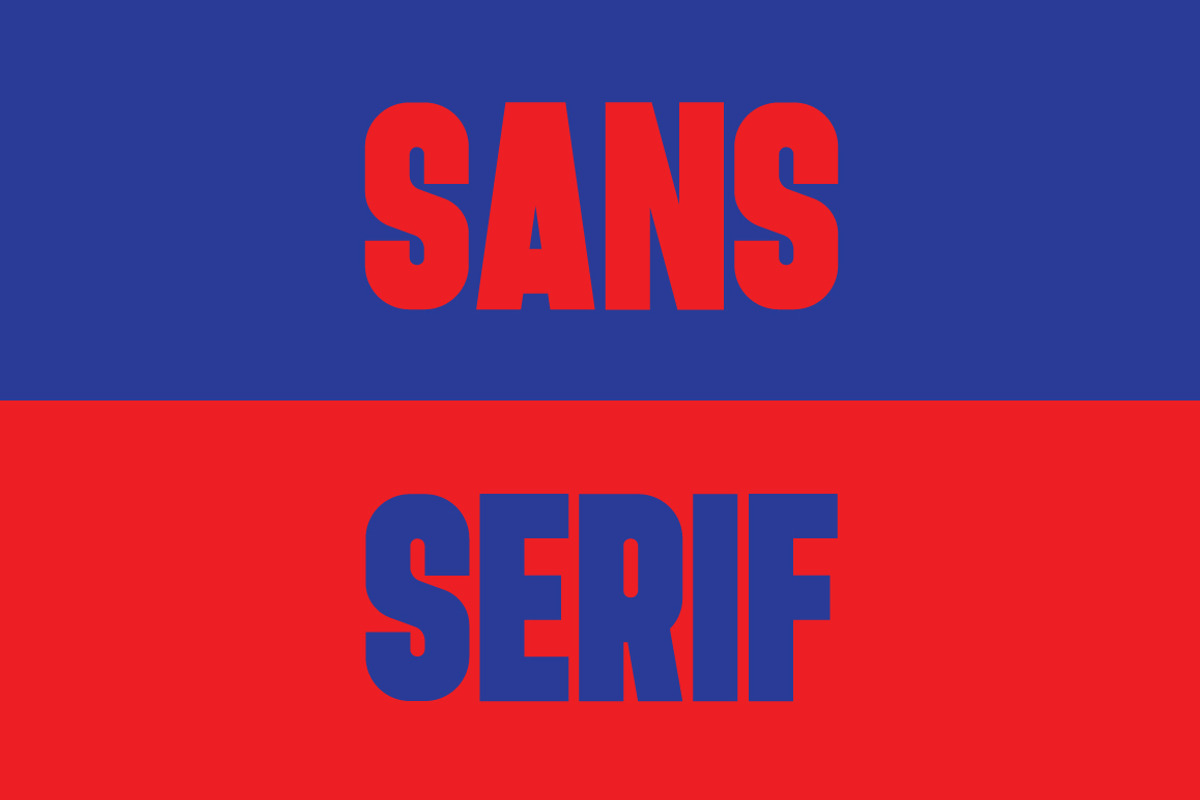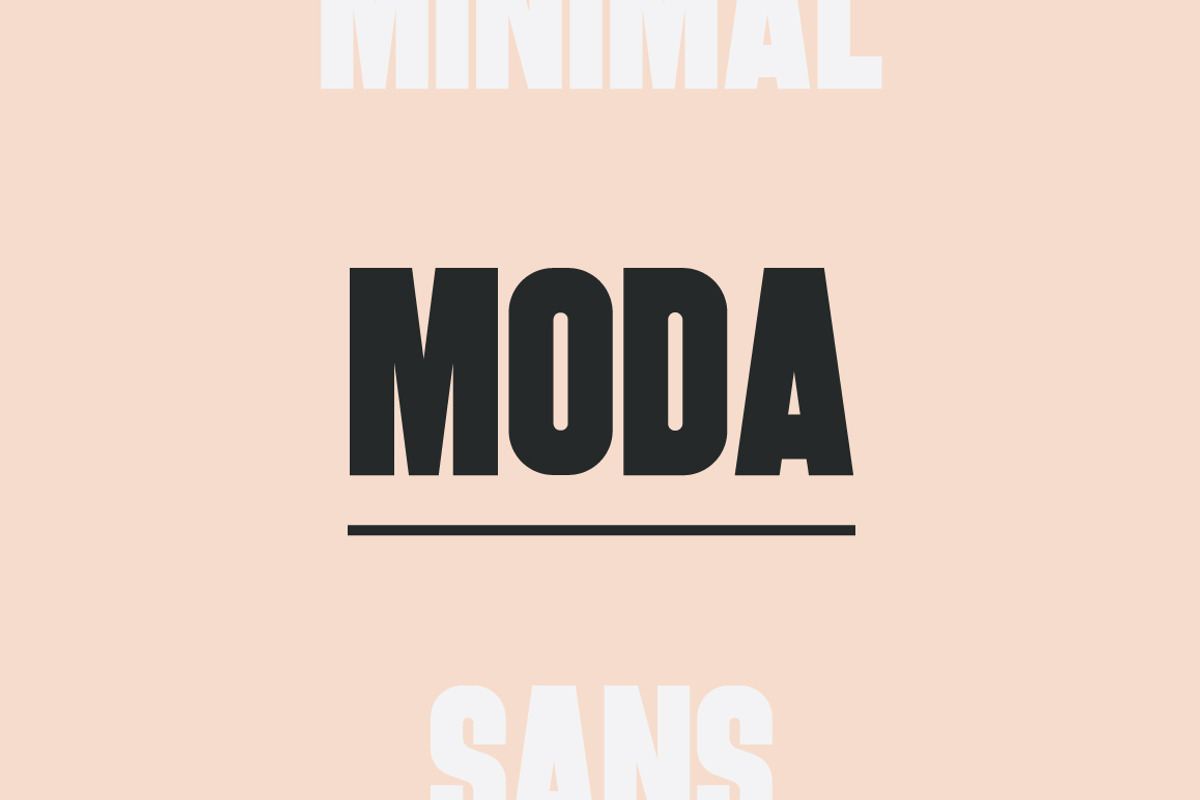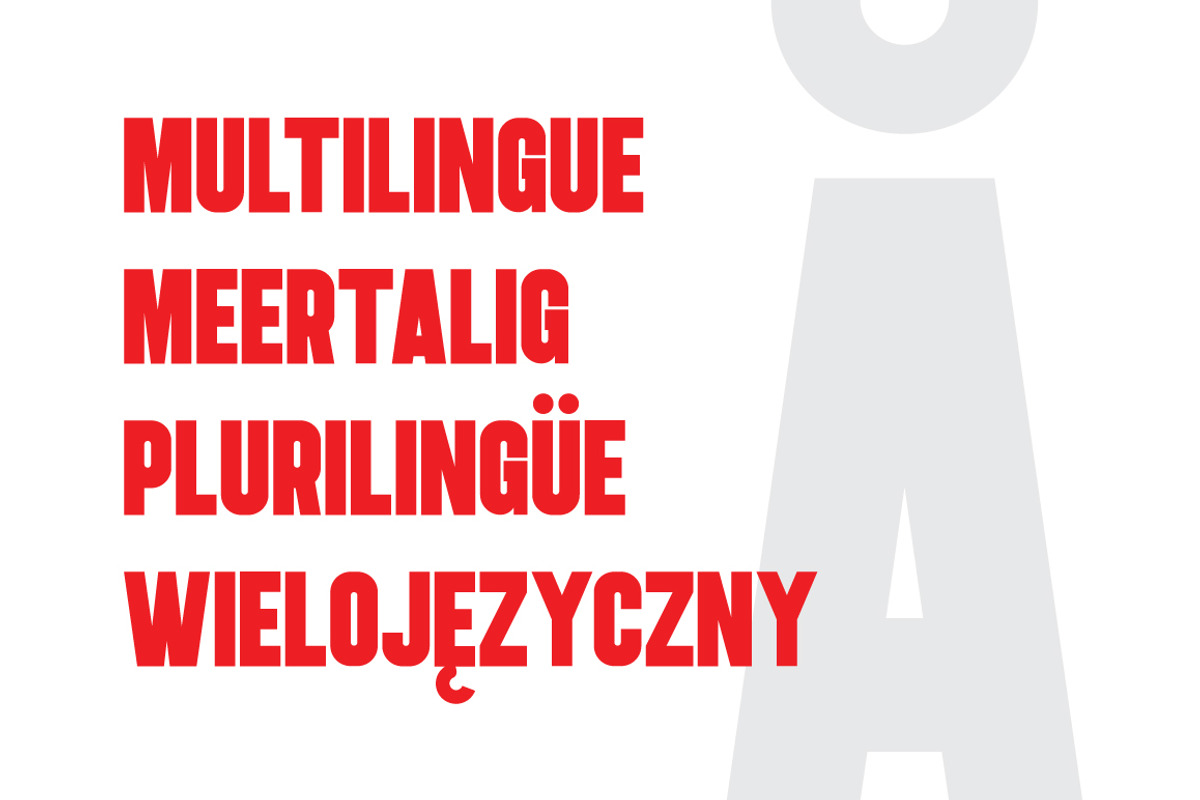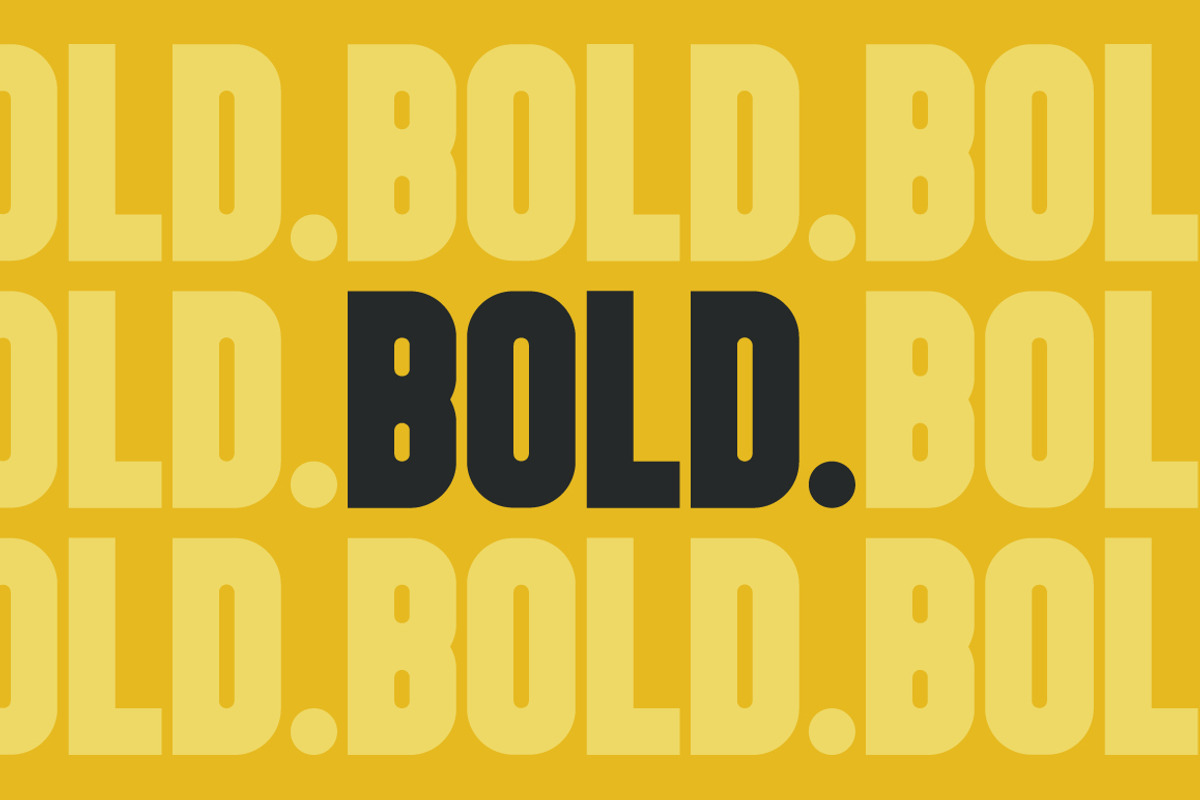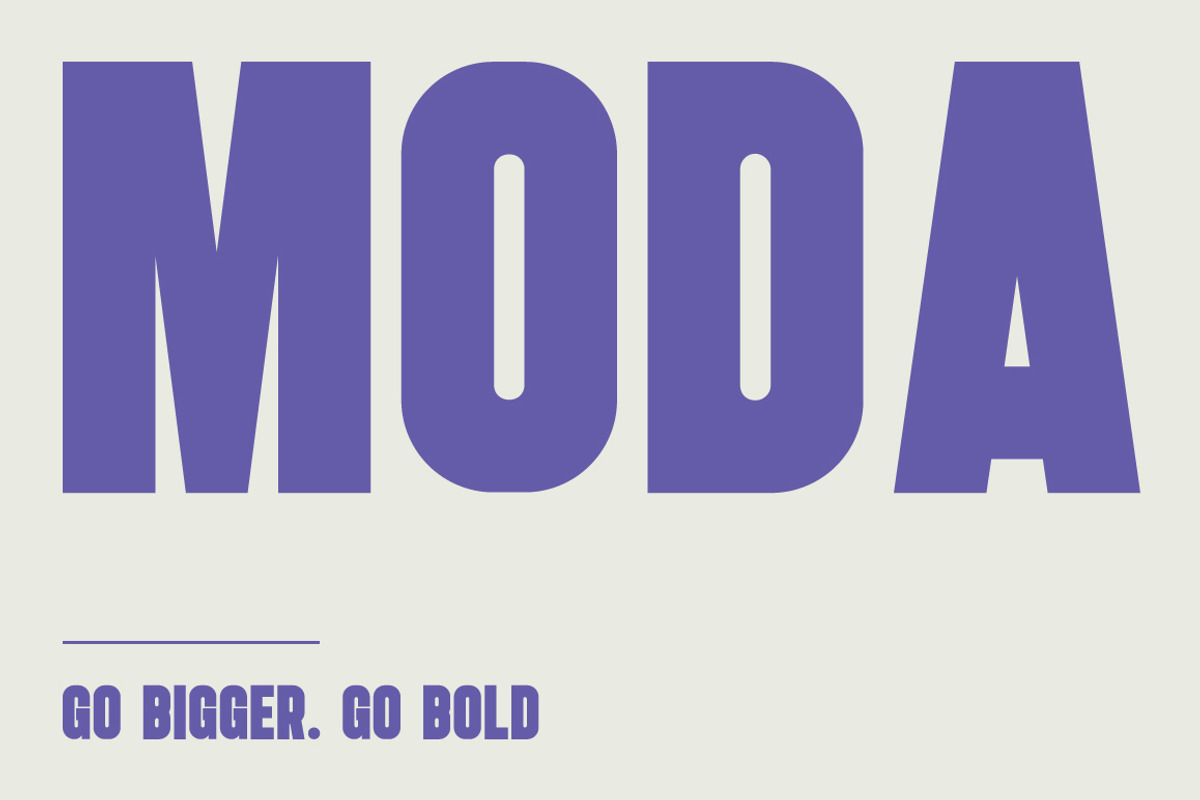
Moda - Minimal Sans Serif Font
Introducing Moda, a clean modern sans serif that’s on the heavier side. Use this bold chunky font for creating impactful titles and headlines. Great for website headers, posters, logos, advertising & promotions. Includes multilingual characters!
- Includes multilingual characters!
Why Moda - Minimal Sans Serif Font is worth a look
Moda - Minimal Sans Serif Font by Surplus Type Co fits naturally into Branding, posters, packaging, typography.